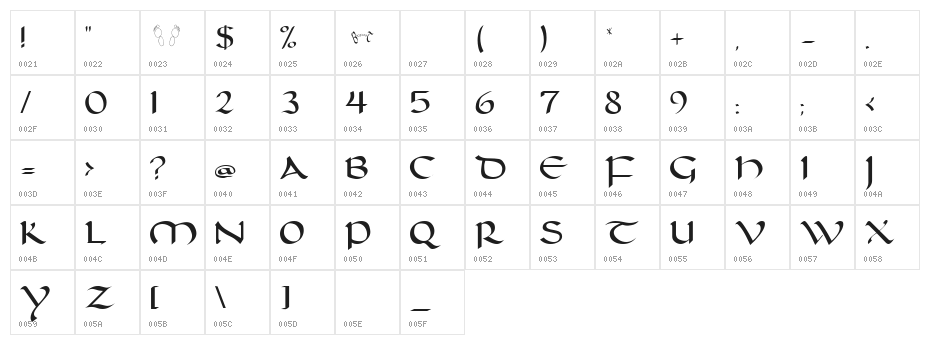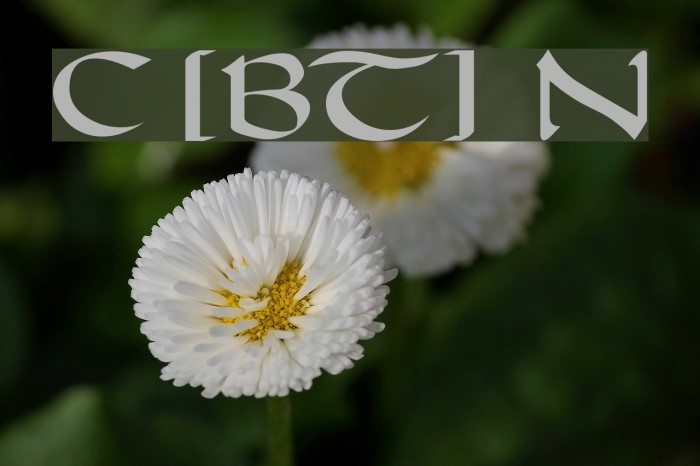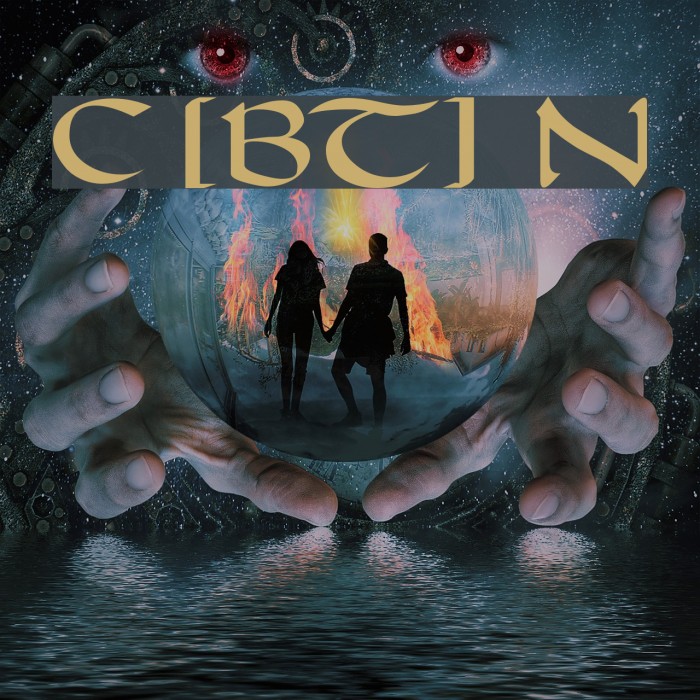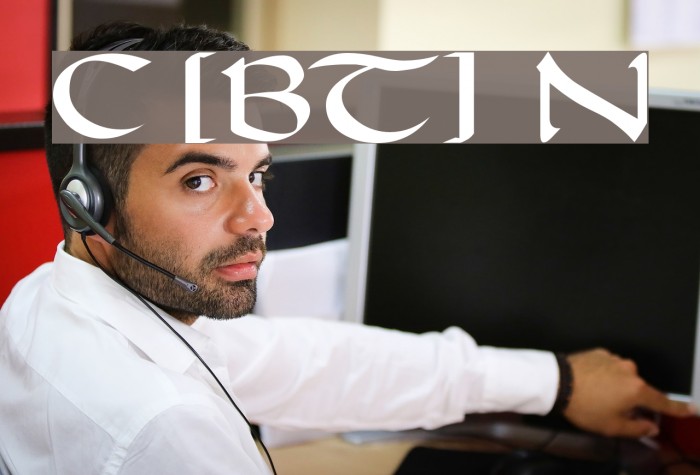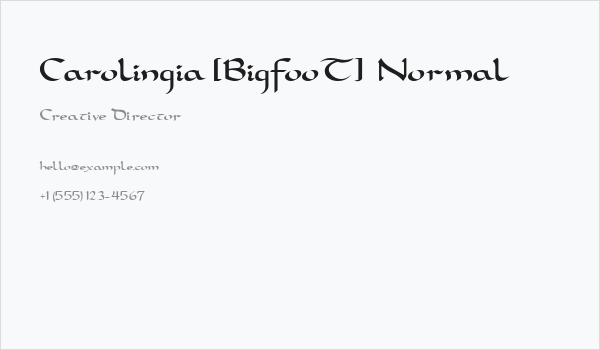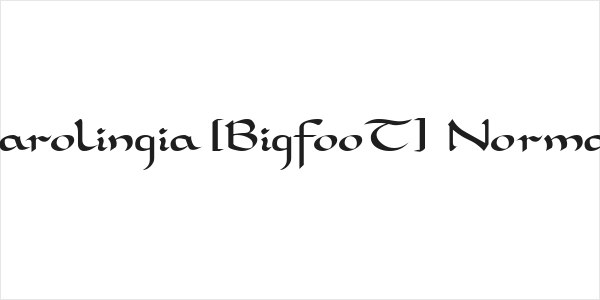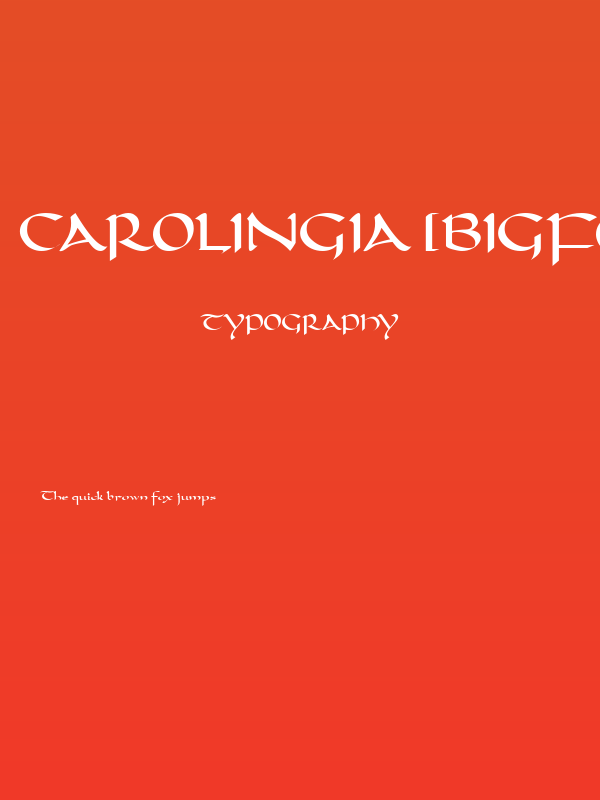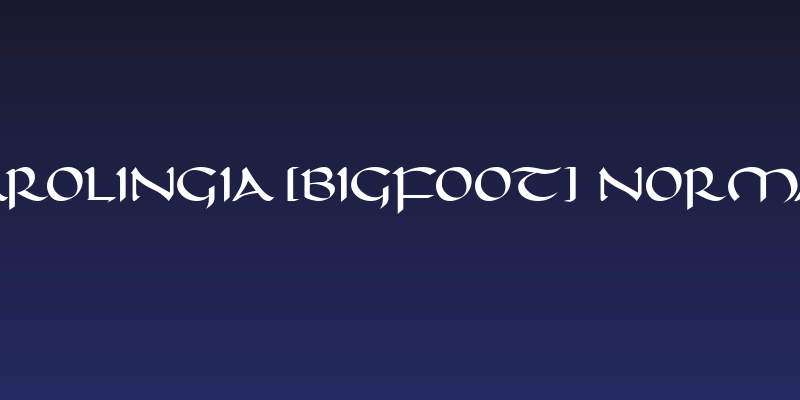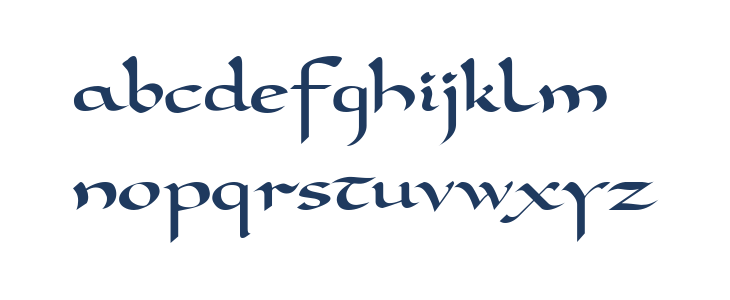
Carolingia [BigfooT] Normal Font
Carolingia [BigfooT] Normal Description
This font features a distinct and artistic style reminiscent of medieval calligraphy, characterized by sharp, angular strokes and a bold presence. The uppercase letters exhibit a strong, authoritative appearance with unique flourishes, while the lowercase letters maintain a consistent style with slightly more rounded edges. The numerals are bold and clear, ensuring readability. Special characters are creatively designed, adding a whimsical touch to the overall aesthetic. This font's intricate design elements make it suitable for projects that require a historical or fantasy theme.
| Use Case | Headlines, Logos, Decorative text |
| Proposed Projects | Ideal for fantasy book covers, historical event posters, themed invitations, and decorative signage. |